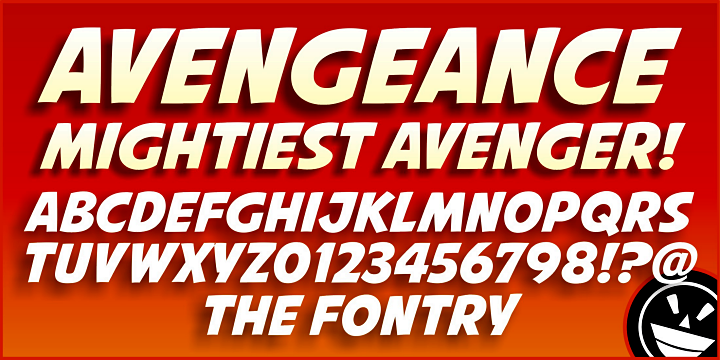
This powerful typeface excels in action movie posters, superhero comic branding, gaming interface design, military-themed projects, justice campaign materials, thriller book covers, dramatic event promotions, and intense communications. Its vengeful character makes it perfect for projects requiring heroic strength and justice-themed authenticity.
Avengeance Font creates excitement through its heroic intensity that captures the unwavering determination of justice seekers and righteous warriors. The font's bold strokes and justice-inspired letterforms create an atmosphere of righteous power that resonates with audiences seeking empowerment and heroic authenticity. Its powerfully crafted character variations deliver battle-ready readability while maintaining distinctive heroic personality that reflects the eternal struggle for justice and the transformative power of standing up for what is right.
The Avengeance Font family includes multiple justice-themed variations such as regular, condensed, bold, shadow, and warrior styles. Each family member maintains the distinctive heroic aesthetic while offering different levels of justice sophistication for various empowerment applications. This righteous collection empowers designers to create inspiring compositions that celebrate the full spectrum of heroic experiences from quiet determination to bold declarations of justice.
The Avengeance Font Free Download provides designers with access to premium heroic typography that brings authentic justice energy to any project. Its powerful character and righteous appeal make it ideal for creating memorable hero brands and engaging justice communications that inspire action. Whether developing superhero identities, designing action materials, or crafting empowerment marketing campaigns, this font delivers the heroic authenticity and justice spirit essential for connecting with audiences who fight for what's right, seek empowerment, and embrace the noble calling of standing up for justice and protecting the innocent.